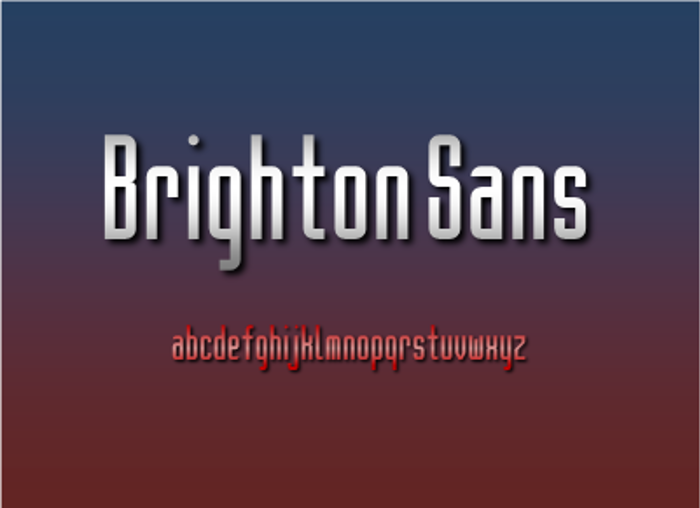
Brighton NBP Font
Brighton Serif NBP Style
Brighton SmallCaps NBP Style
Brighton Square NBP Style
About Brighton NBP Font
A narrow art-deco style design. Contains some Industria influence.
CHANGES IN VERSION 1.1:
-Added 3 variations
CONTAINS:
-Brighton Sans (formerly "Brighton NBP")
-Brighton Serif
-Brighton Square
-Brighton SmallCaps
NOTICE! This font family will no longer be updated as it has been replaced by BrightonTwo NBP.